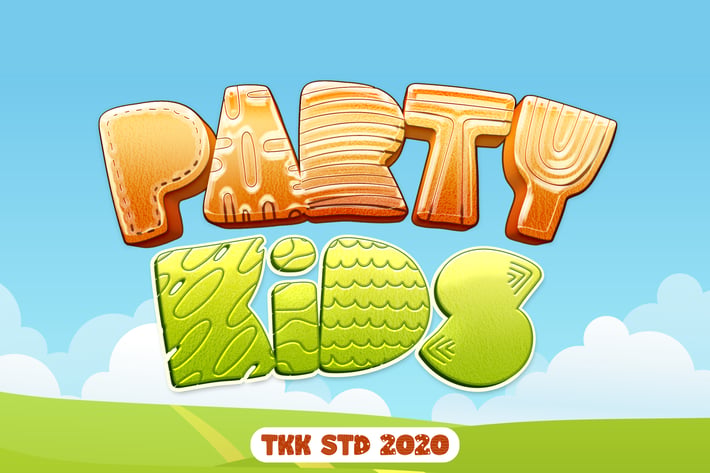
Party Kids - Gaming Font
Party Kids is a cheerful kids display font designed with chunky letterforms, soft edges, and a bouncy baseline that instantly delivers playful energy. Perfect for fun-loving designs, this geometric yet expressive typeface is infused with childlike wonder, making it ideal for bright, imaginative themes. With bold proportions and lively spacing, it stands out in any kid-centered project—from games to birthday invites.
Create Memorable Moments with Eye-Catching Style
Whether you're designing party invitations, playful packaging, or educational games, Party Kids brings youthful charm to your typography. Its friendly and energetic appearance helps create a warm connection with children and parents alike. Use it for branding a kid’s snack line, designing a toy packaging, or crafting headlines for a birthday-themed blog—it’s versatile, lovable, and hard to ignore.
Key Features :
Vibrant Personality – Brings warmth and excitement to child-oriented designs
Playful Letterforms – Rounded corners, bold weight, and dancing baselines
Excellent Readability – Stands out in both print and digital environments
Perfect for Creatives – Tailored for illustrators, marketers, teachers, and children’s brands
* Optimized Spacing – Carefully kerned to balance energy and clarity
- Basic latin A-Z and a-z
- Numbers
- PUA Encoded Characters
Make Your Next Project Unforgettable
Turn every design into a party with Party Kids—a font that captures joy, color, and imagination in every curve. Perfect for designers who want to add spark and fun into their creative work. Don’t wait—bring your next kids project to life today!
Party Kids is a cheerful kids display font designed with chunky letterforms, soft edges, and a bouncy baseline that instantly delivers playful energy. Perfect for fun-loving designs, this geometric yet expressive typeface is infused with childlike wonder, making it ideal for bright, imaginative themes. With bold proportions and lively spacing, it stands out in any kid-centered project—from games to birthday invites.
Create Memorable Moments with Eye-Catching Style
Whether you're designing party invitations, playful packaging, or educational games, Party Kids brings youthful charm to your typography. Its friendly and energetic appearance helps create a warm connection with children and parents alike. Use it for branding a kid’s snack line, designing a toy packaging, or crafting headlines for a birthday-themed blog—it’s versatile, lovable, and hard to ignore.
Key Features :
Vibrant Personality – Brings warmth and excitement to child-oriented designs
Playful Letterforms – Rounded corners, bold weight, and dancing baselines
Excellent Readability – Stands out in both print and digital environments
Perfect for Creatives – Tailored for illustrators, marketers, teachers, and children’s brands
* Optimized Spacing – Carefully kerned to balance energy and clarity
- Basic latin A-Z and a-z
- Numbers
- PUA Encoded Characters
Make Your Next Project Unforgettable
Turn every design into a party with Party Kids—a font that captures joy, color, and imagination in every curve. Perfect for designers who want to add spark and fun into their creative work. Don’t wait—bring your next kids project to life today!